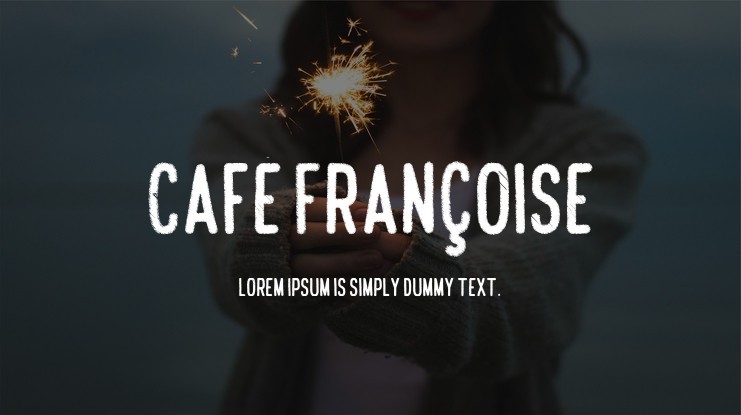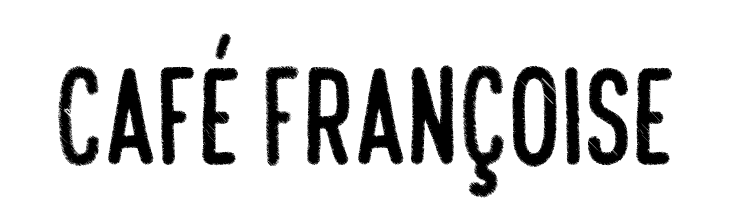
Cafe Françoise Font
Cafe Françoise Font is actually quite charming due to its striking appearance. Take a look at the images and you will surely fall in love with it. This font is also referred to as French Font.
He has taken the concept from which changed into as rapid as released. In this manner, it truly positioned on the designs of the butler font. This font is also used in Disney.
Style Of Cafe Françoise Font Free